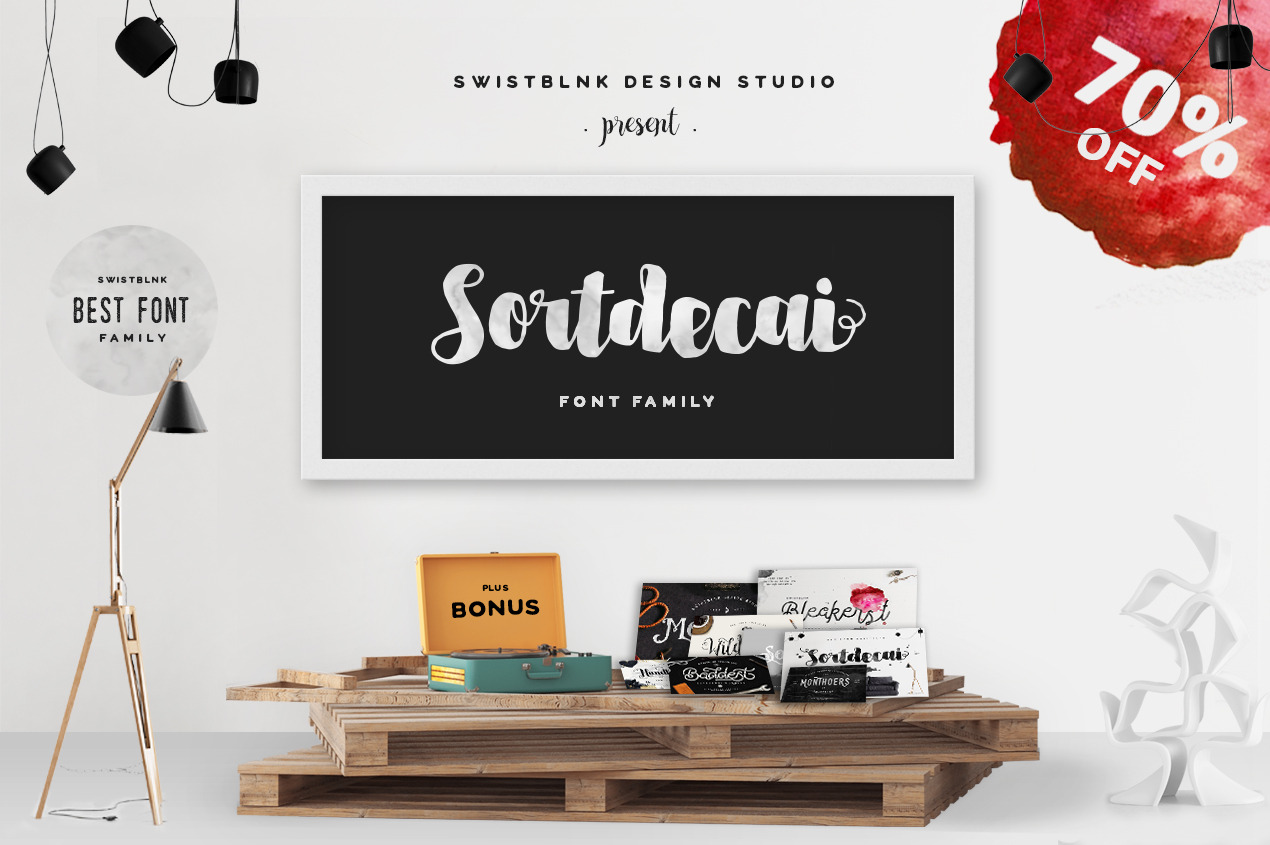
Sortdecai Font Family & Bonus
Sortdecai is the Best and the Most Popular Swistblnk's Font Family so far. Sortdecai have complete set for any theme, from vintage handrawn to modern brush style.
- Sortdecai Handmade ( )
- Sortdecai Vintage (
- Sortdecai Script ( )
- Sortdecai Brush Script ( )
- Sortdecai Handmade Script ( )
- Sortdecai Display ( )
- Sortdecai Display Handmade ( )
- Sortdecai Cursive Script ( )